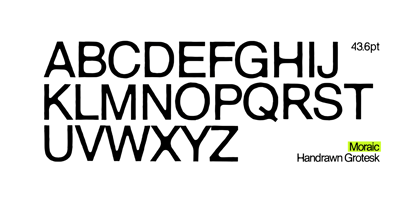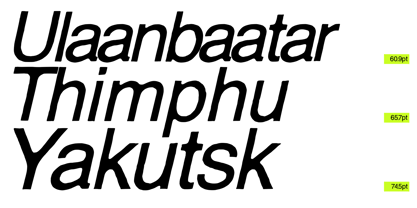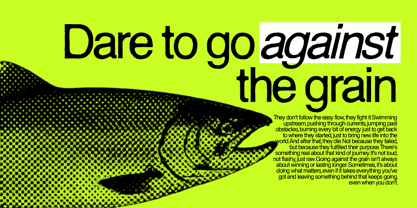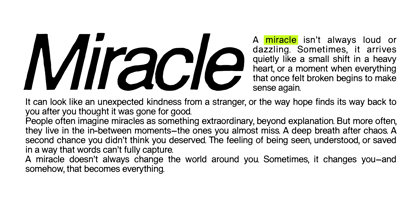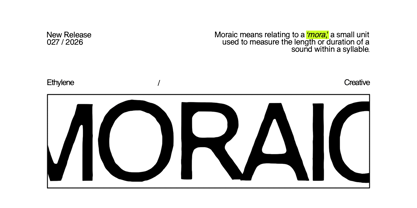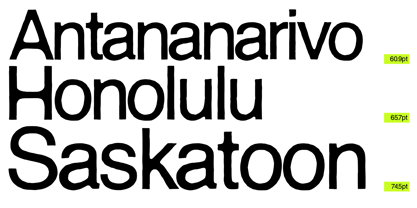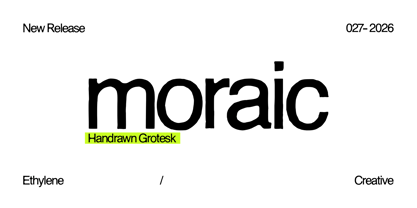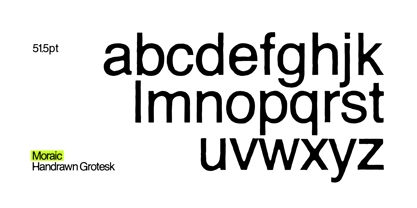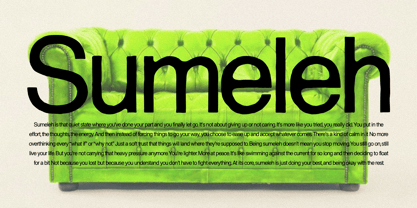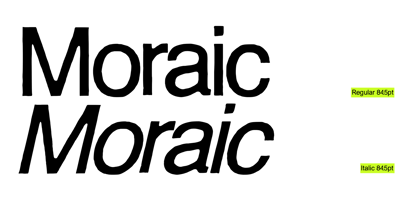
Moraic
by Ethylene
The Moraic Font Family was designed by Cherly Nugroho and published by Ethylene. Moraic contains 2 styles and family package options. More about this family
Moraic is a handrawn grotesk typeface that blends raw human imperfection with the clean structure of modern sans serif design. Inspired by experimental typography, editorial layouts, and contemporary graphic culture, Moraic delivers a bold yet approachable personality perfect for standout visual communication.
Its slightly uneven strokes and organic curves create a natural handcrafted rhythm while maintaining strong readability. The result is a versatile grotesk font with a distinctive character—minimal, expressive, and effortlessly modern.
Moraic works beautifully across branding, posters, editorial design, album covers, packaging, social media graphics, and contemporary visual identities. Whether used in large headlines or creative layouts, it adds a fresh and authentic voice to your typography.